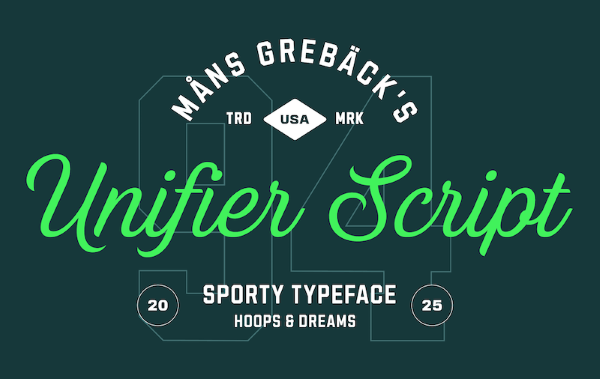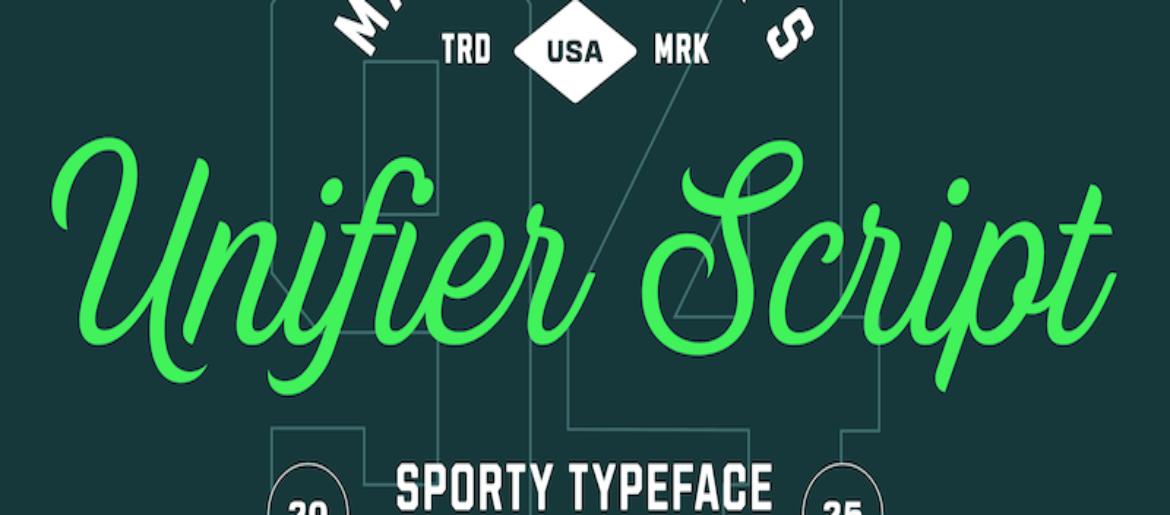
Unifier Font
Unifier Script by Måns Grebäck is among the most glyph-rich scripts in this designer’s already extensive catalogue — 1,118 glyphs offer an extraordinary toolkit of alternates, ligatures, swashes, and extended character support. That depth transforms it from a simple display font into a fully equipped typographic instrument for sophisticated projects. The flowing, connected letterforms balance elegance with legibility, giving it broad appeal across luxury brand identities, high-end editorial work, certificates, invitations, and packaging where craft and refinement must come through clearly. Free for personal use.
Unifier Script is one of the most feature-rich free script fonts available, showcasing Måns Grebäck’s dedication to typographic depth and completeness. More glyphs mean more creative possibilities. Browse our full library of free fonts and discover more distinctive typefaces crafted by independent designers around the world.